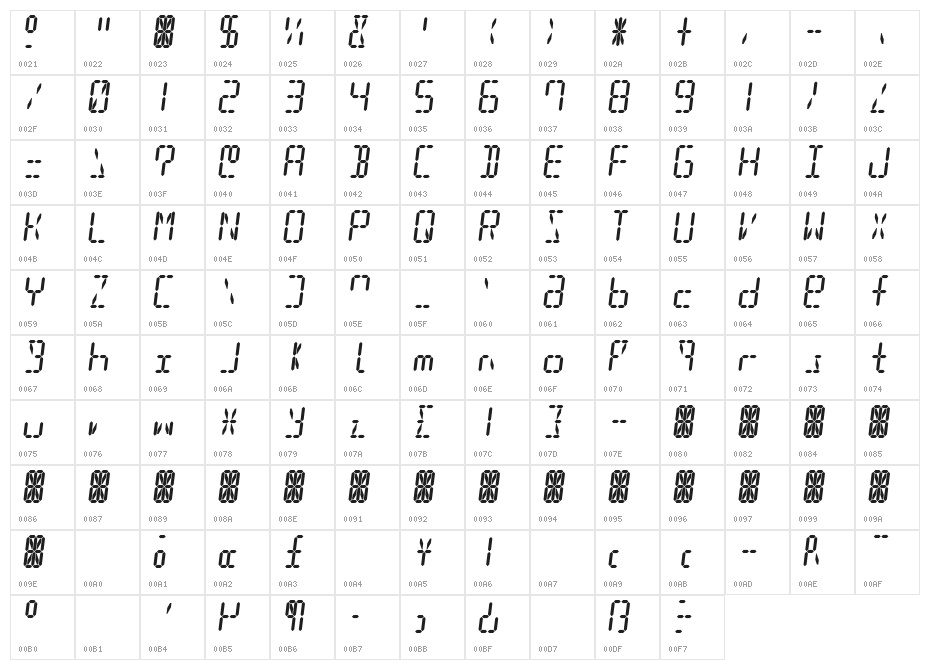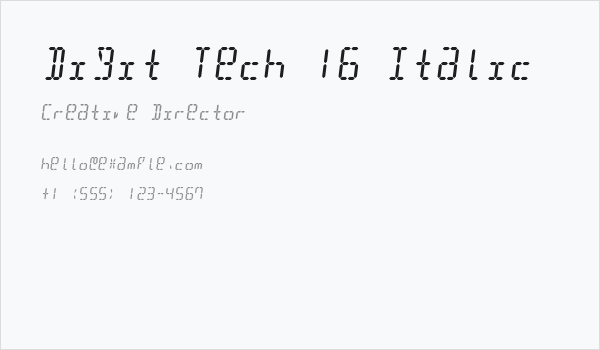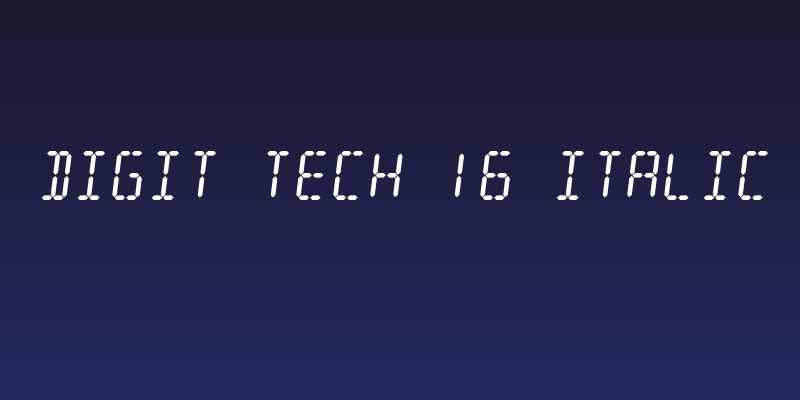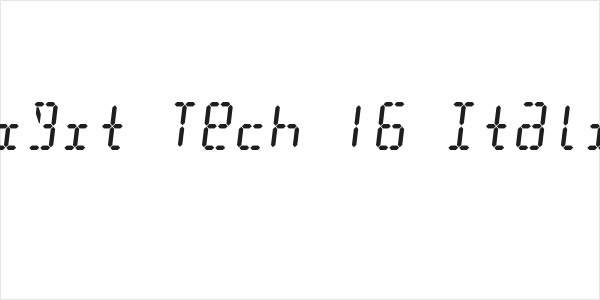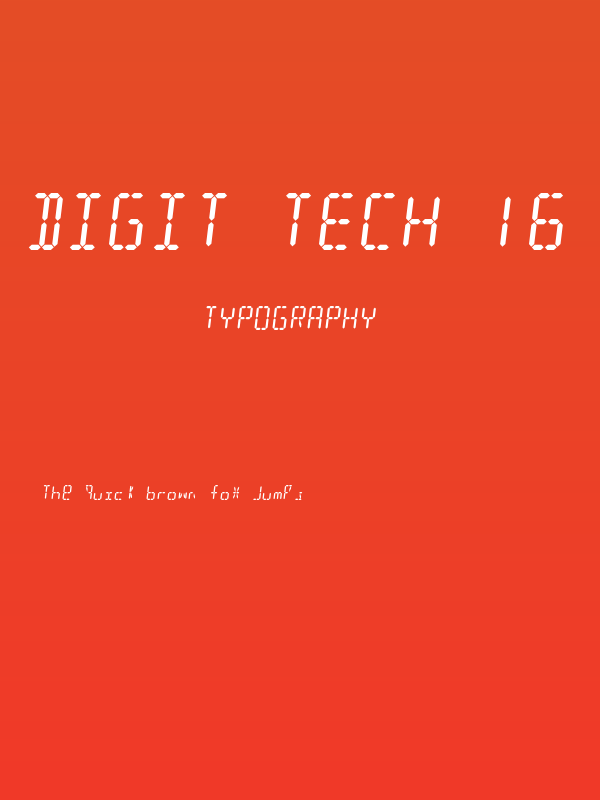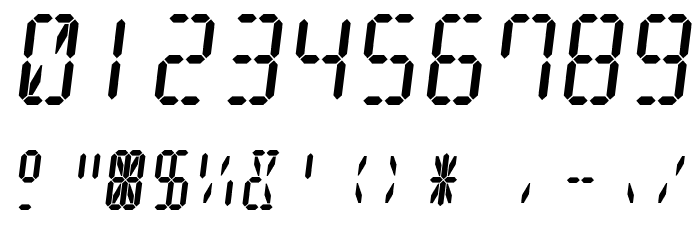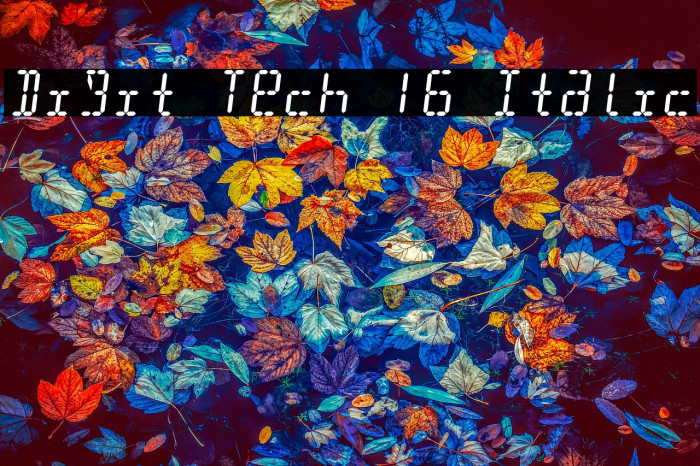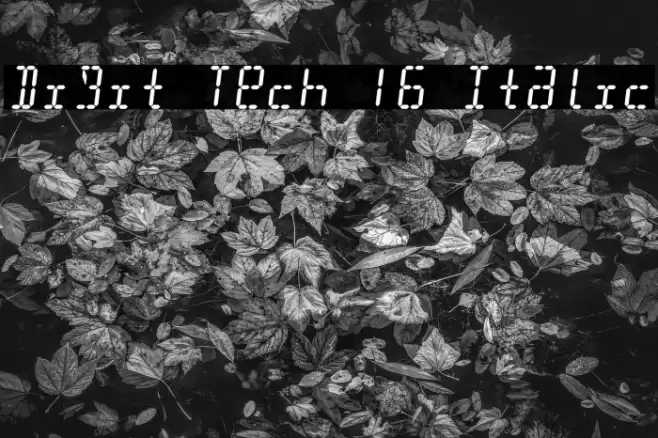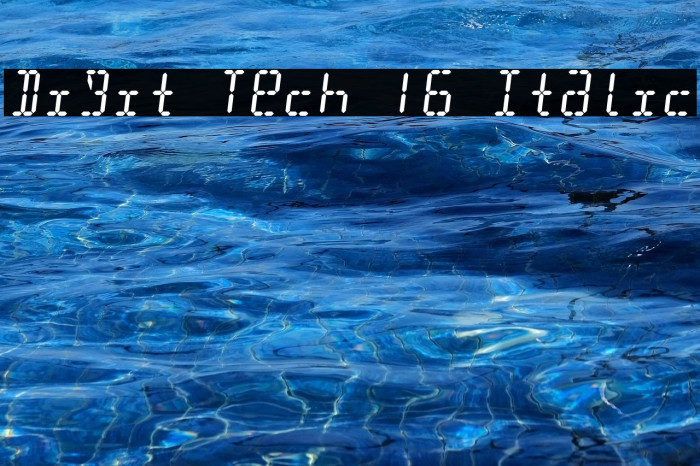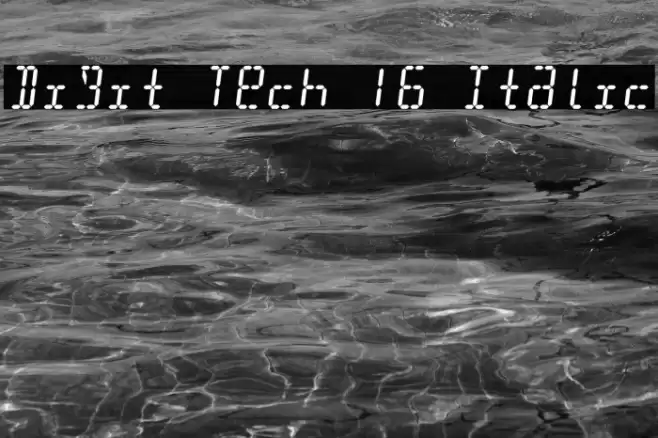
Digit Tech 16 Italic Font
Digit Tech 16 Italic Description
This font features a digital, tech-inspired design reminiscent of LED displays and digital clocks. Each character is constructed with a series of segmented lines, creating a futuristic and mechanical appearance. The italic style adds a dynamic and forward-leaning aspect to the characters, enhancing the sense of motion and modernity. The font maintains a consistent geometric structure across uppercase, lowercase, numbers, and special characters, ensuring uniformity and readability. Its unique style makes it ideal for projects that require a technological or digital aesthetic.
| Use Case | Headlines, Logos |
| Proposed Projects | Ideal for digital interfaces, tech-themed posters, video game graphics, and futuristic branding. |